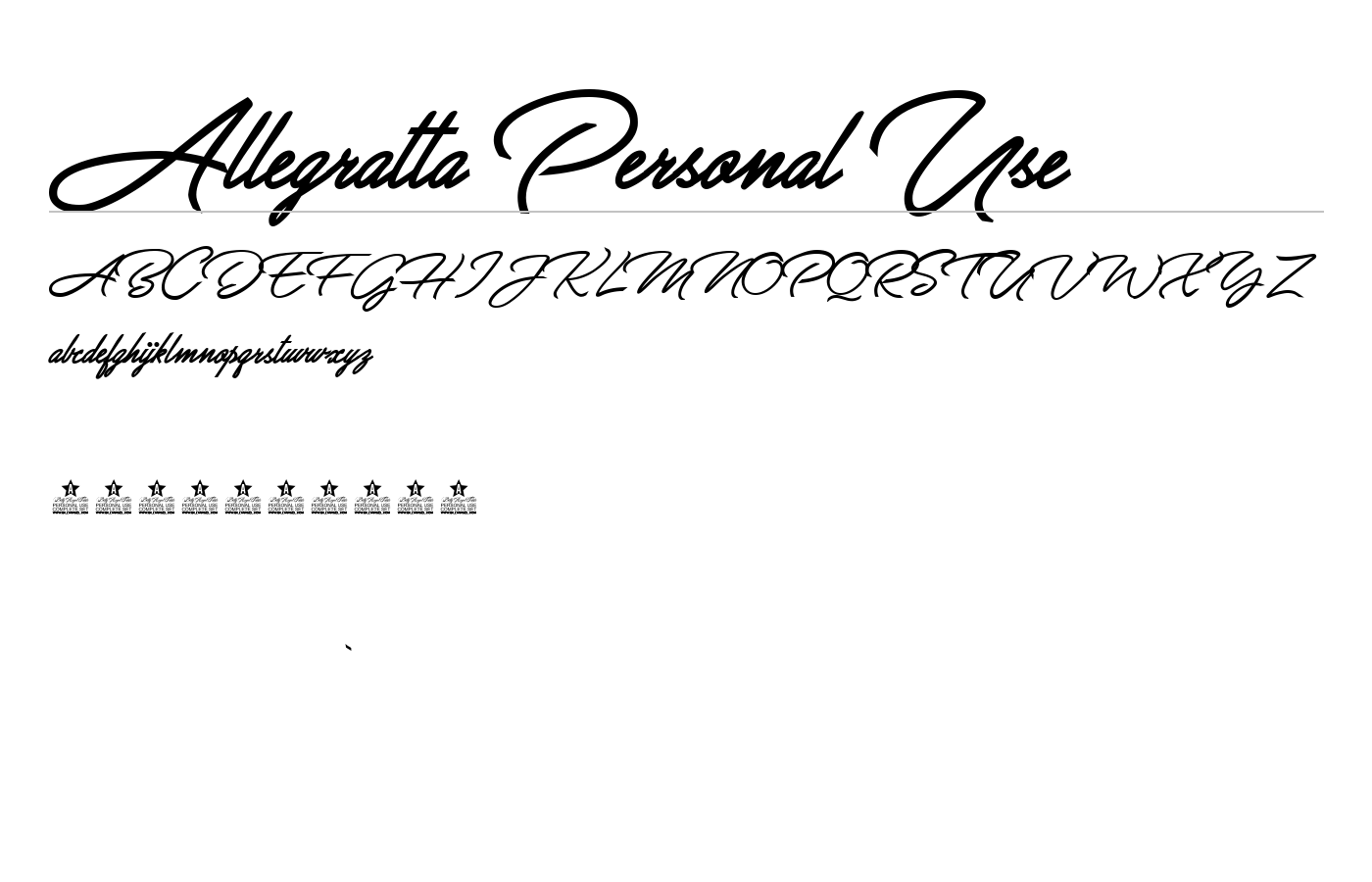
Allegratta Personal Use Font is a stylish, elegant script typeface featuring smooth, flowing strokes and a graceful, handwritten feel. It offers refined uppercase and lowercase letters with a natural, calligraphic touch, making it perfect for sophisticated branding, invitations, and decorative headlines. This font combines charm and readability, lending a personal and artistic vibe to any design.
Allegratta Personal Use Font
About Allegratta Personal Use Font